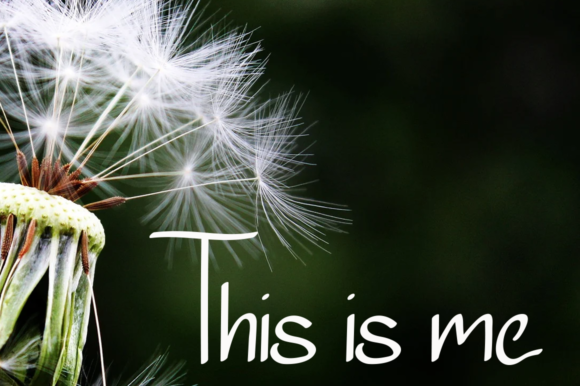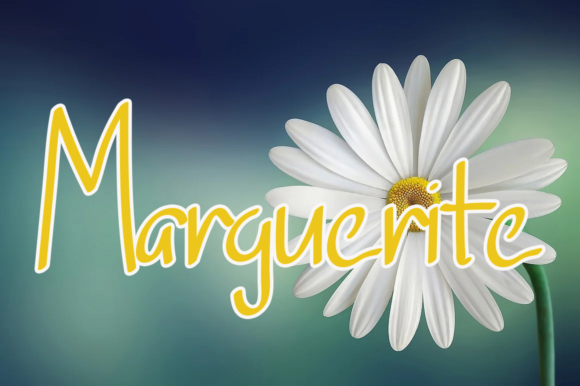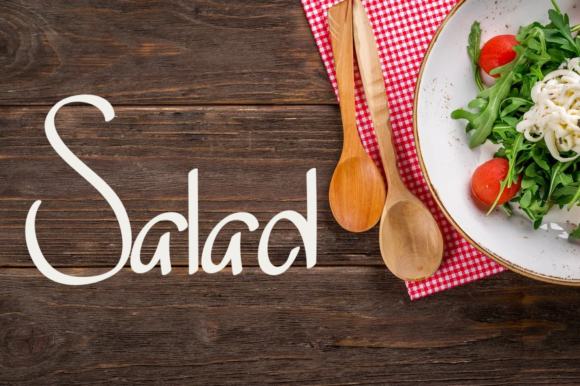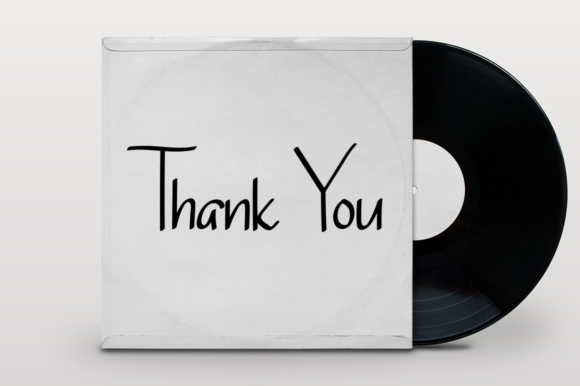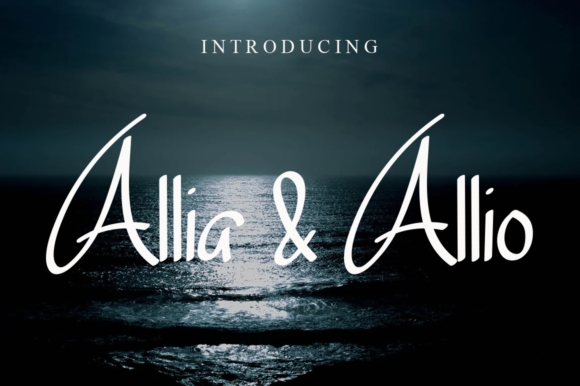
Discover the Charm of Allia & Allio: A Relaxed and Fresh Handwritten Font
In the world of typography, fonts play a crucial role in bringing designs to life. A well-chosen font can elevate a design, convey a message, and even evoke emotions. For designers and crafters looking for a unique and versatile font, Allia & Allio is an excellent choice. This relaxed and fresh handwritten font is perfect for a wide range of designs, from casual blogs to creative branding projects.
The Unique Style of Allia & Allio
Allia & Allio boasts a natural and distinctive style that sets it apart from other fonts. Its handwritten charm is effortlessly relaxed, making it ideal for designs that require a personal touch. The font’s uniqueness lies in its ability to blend simplicity with elegance, creating a beautiful visual experience. Whether you’re designing a logo, a website, or a social media post, Allia & Allio can add a touch of warmth and personality to your work.
One of the most significant advantages of Allia & Allio is its versatility. This font can be used for a wide range of designs, including:
- Branding and logos: Create a memorable brand identity with Allia & Allio’s unique and recognizable style.
- Websites and blogs: Add a personal touch to your website or blog with this friendly and approachable font.
- Social media graphics: Make your social media posts stand out with Allia & Allio’s fresh and modern look.
- Stationery and invitations: Add a touch of elegance and sophistication to your stationery and invitations.
- Packaging and labels: Use Allia & Allio to create eye-catching packaging and labels that reflect your brand’s personality.
Why Choose Allia & Allio?
With so many fonts available, why choose Allia & Allio? Here are a few reasons why this font stands out:
- Unique style: Allia & Allio’s natural and relaxed style is unlike any other font, making it perfect for designers looking for something distinctive.
- Versatility: This font can be used for a wide range of designs, from casual to formal projects.
- Ease of use: Allia & Allio is easy to read and works well in various sizes, making it perfect for body text and headlines.
- Time-saving: With Allia & Allio, you can create professional-looking designs quickly and efficiently.
Tips for Using Allia & Allio Effectively
To get the most out of Allia & Allio, here are some tips to keep in mind:
- Pair with contrasting fonts: Combine Allia & Allio with a contrasting font to create visual interest and hierarchy.
- Experiment with colors: Try out different colors to find the perfect match for your design and brand.
- Use varying font sizes: Use different font sizes to create emphasis and add visual interest to your design.
- Keep it simple: Don’t over-accessorize your design – let Allia & Allio’s natural style shine through.
Allia & Allio is a versatile and charming handwritten font that’s perfect for designers and crafters looking for a unique and relaxed style. With its natural and distinctive look, this font can elevate a wide range of designs, from casual blogs to creative branding projects. Whether you’re a seasoned designer or just starting out, Allia & Allio is an excellent choice for adding a personal touch to your work. So why not give it a try and explore its endless possibilities?